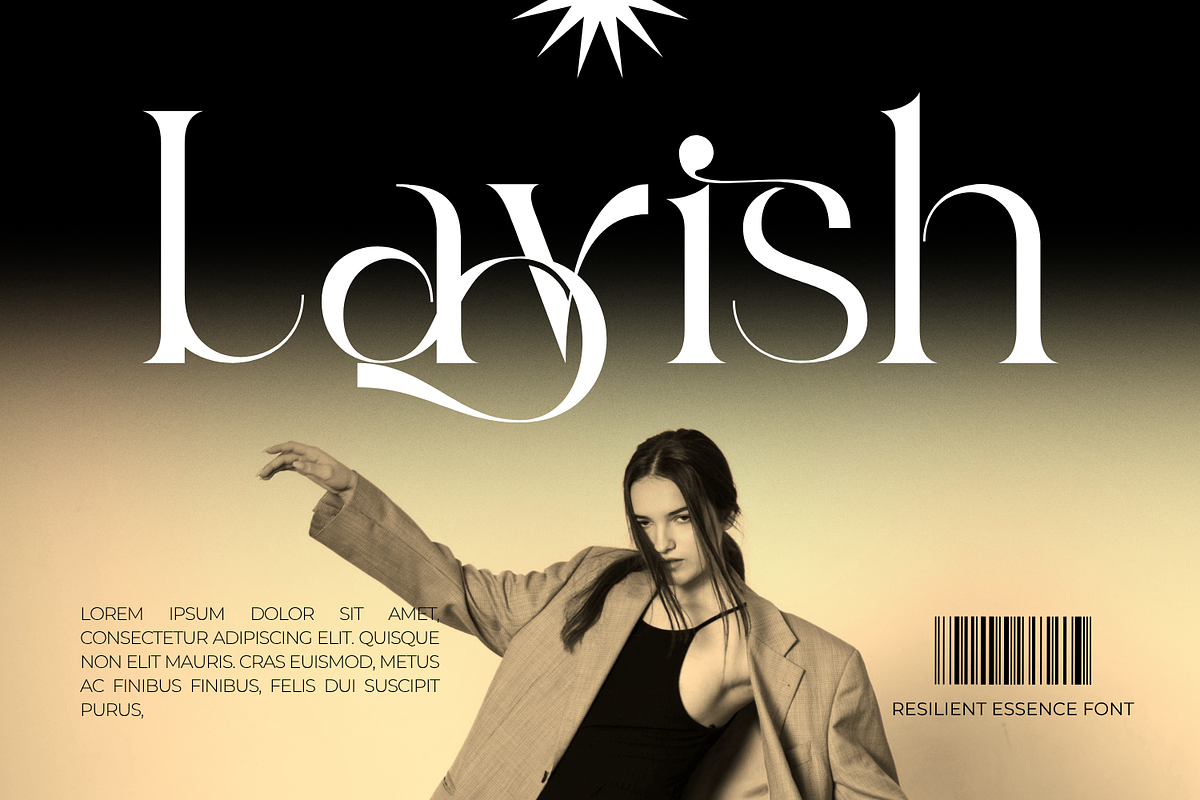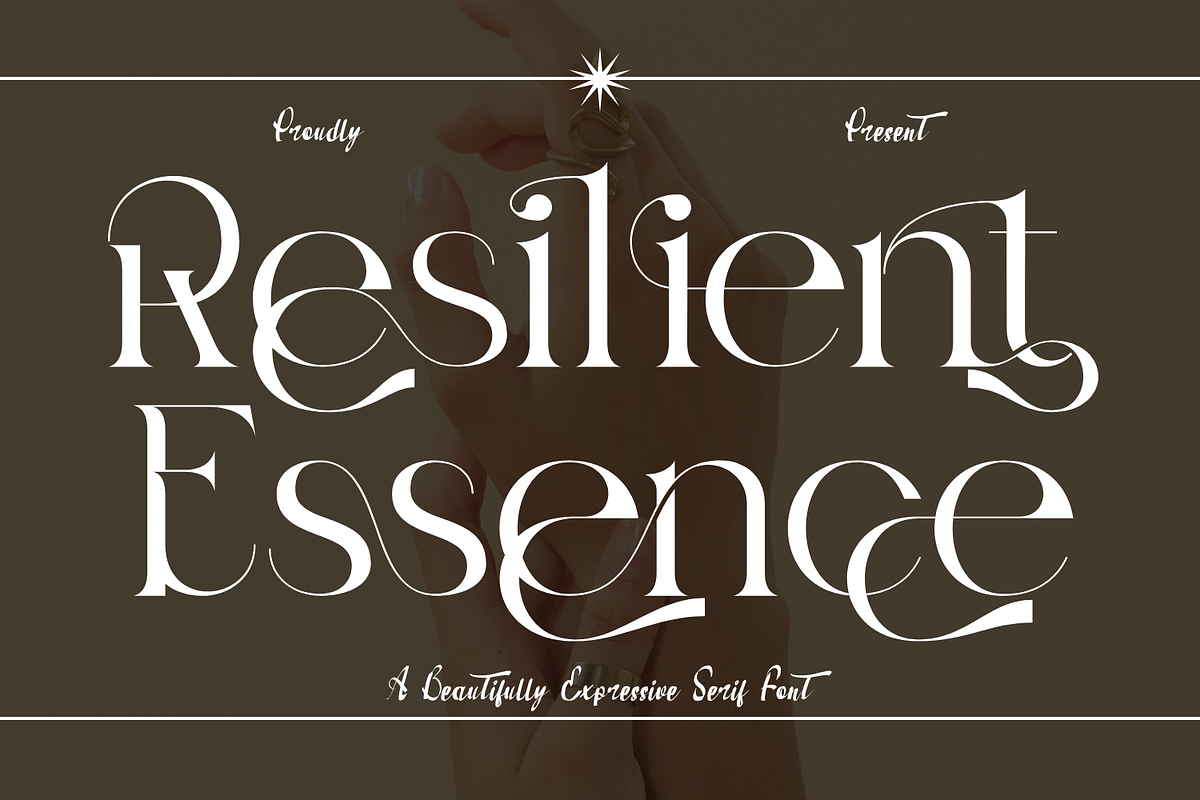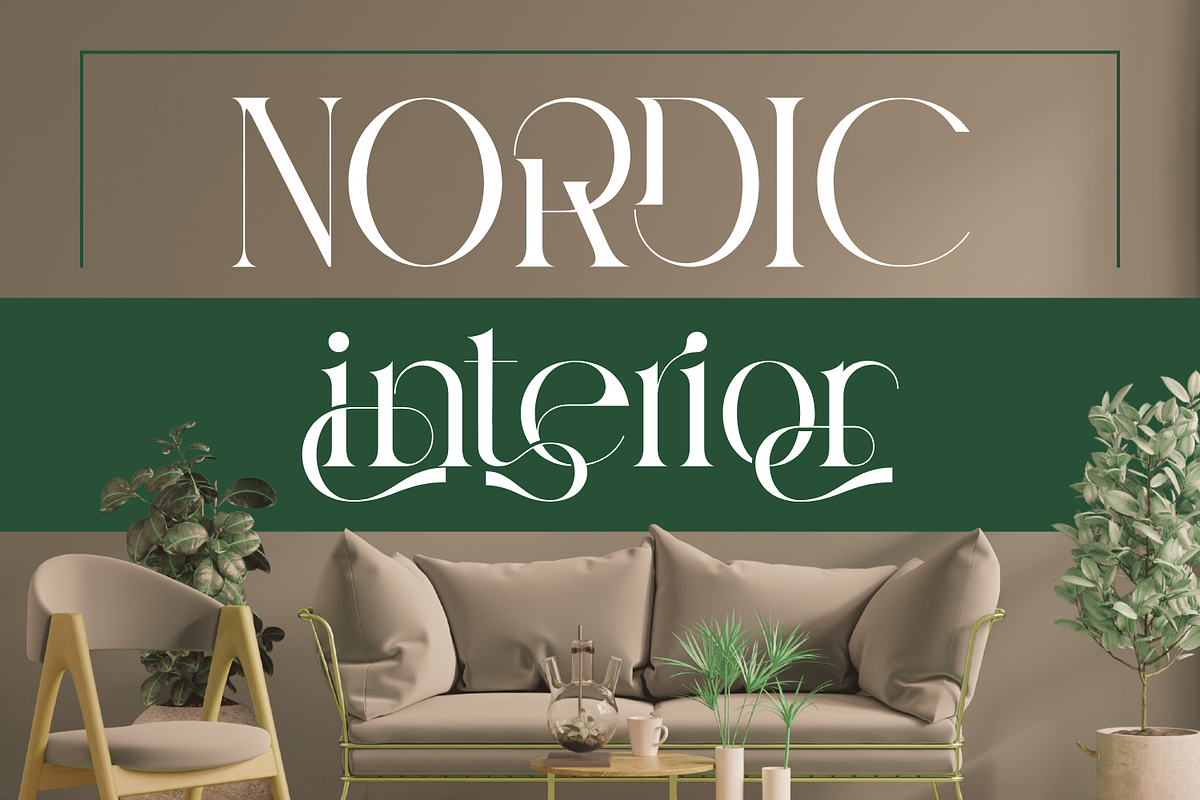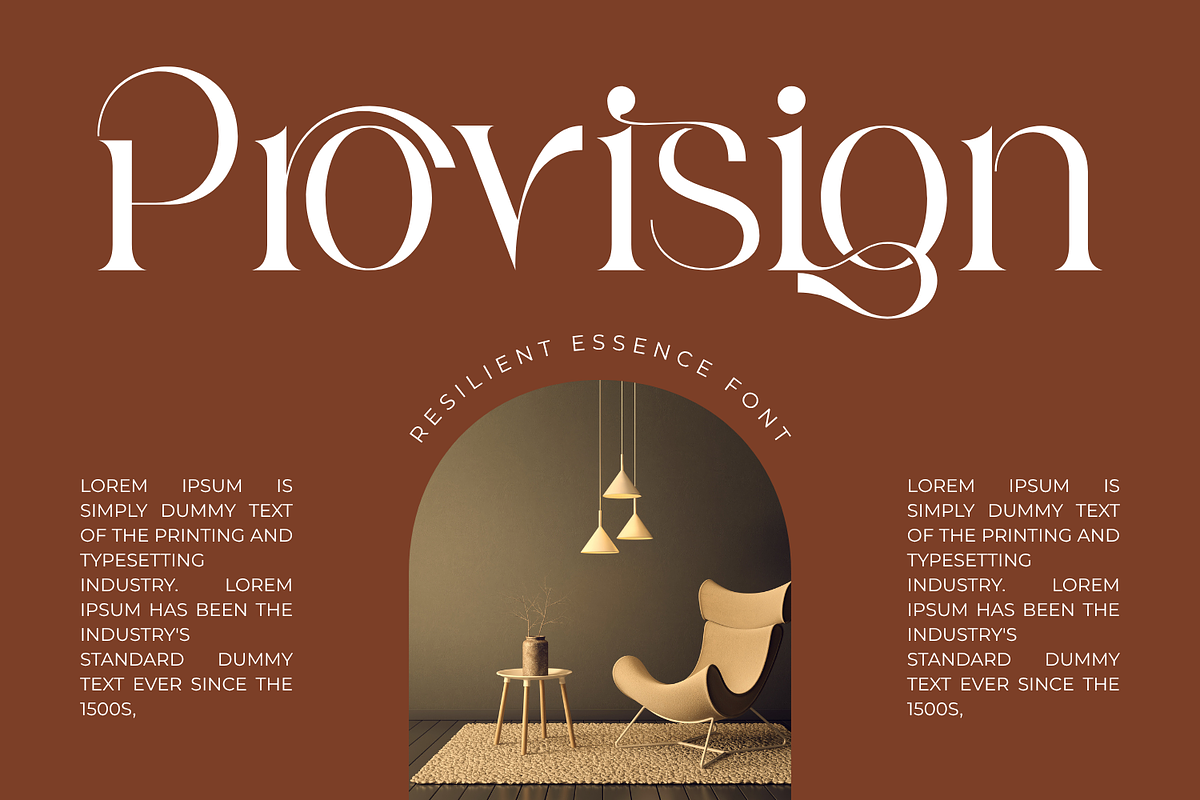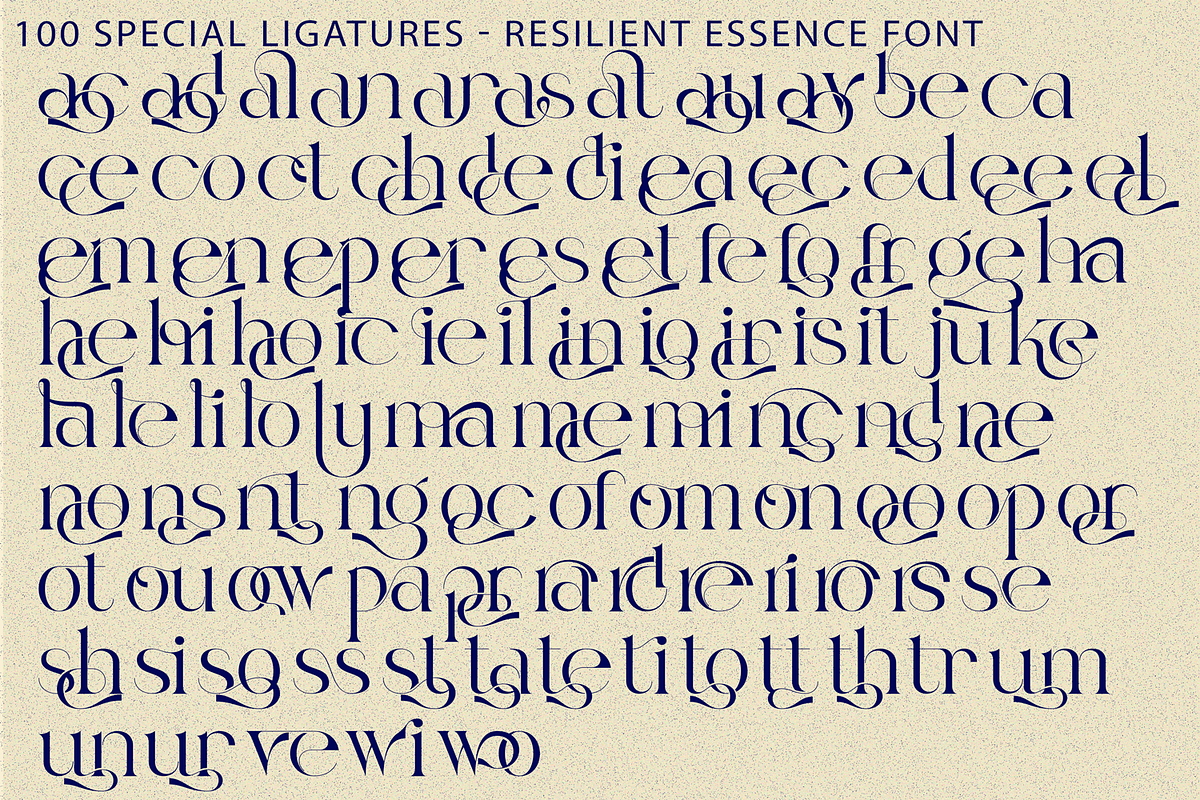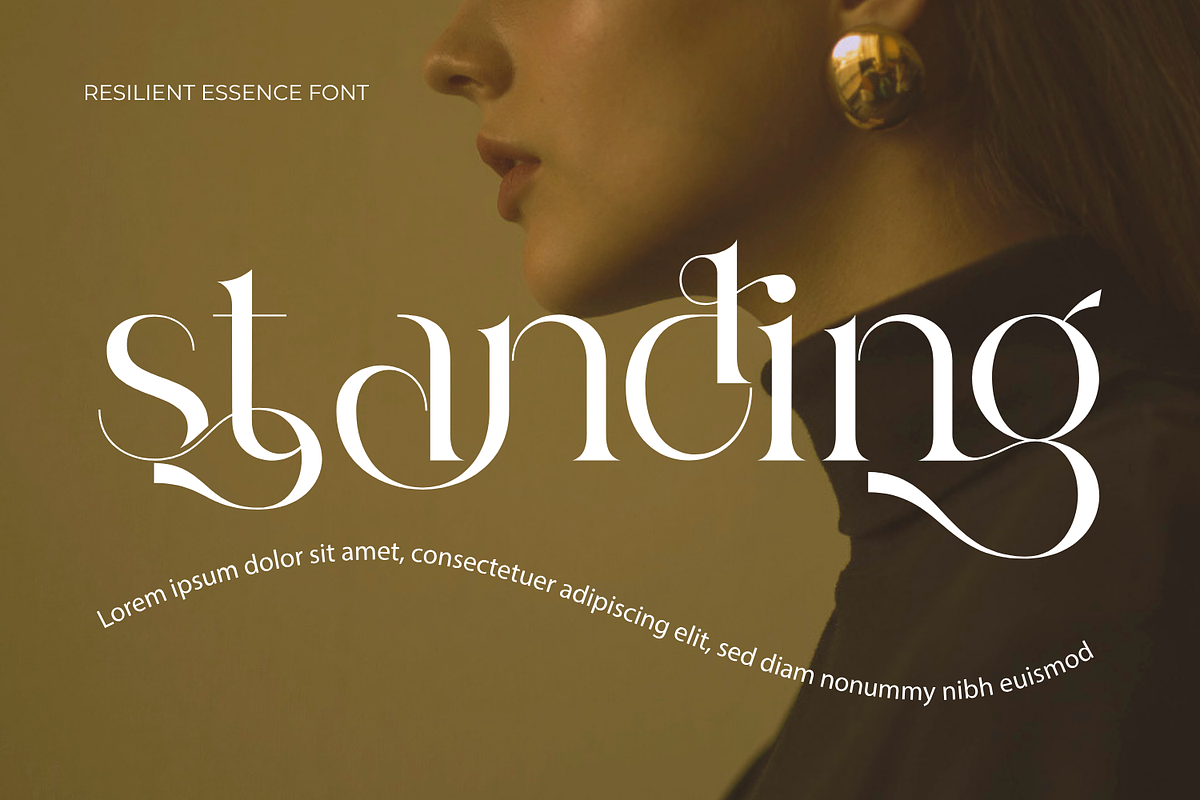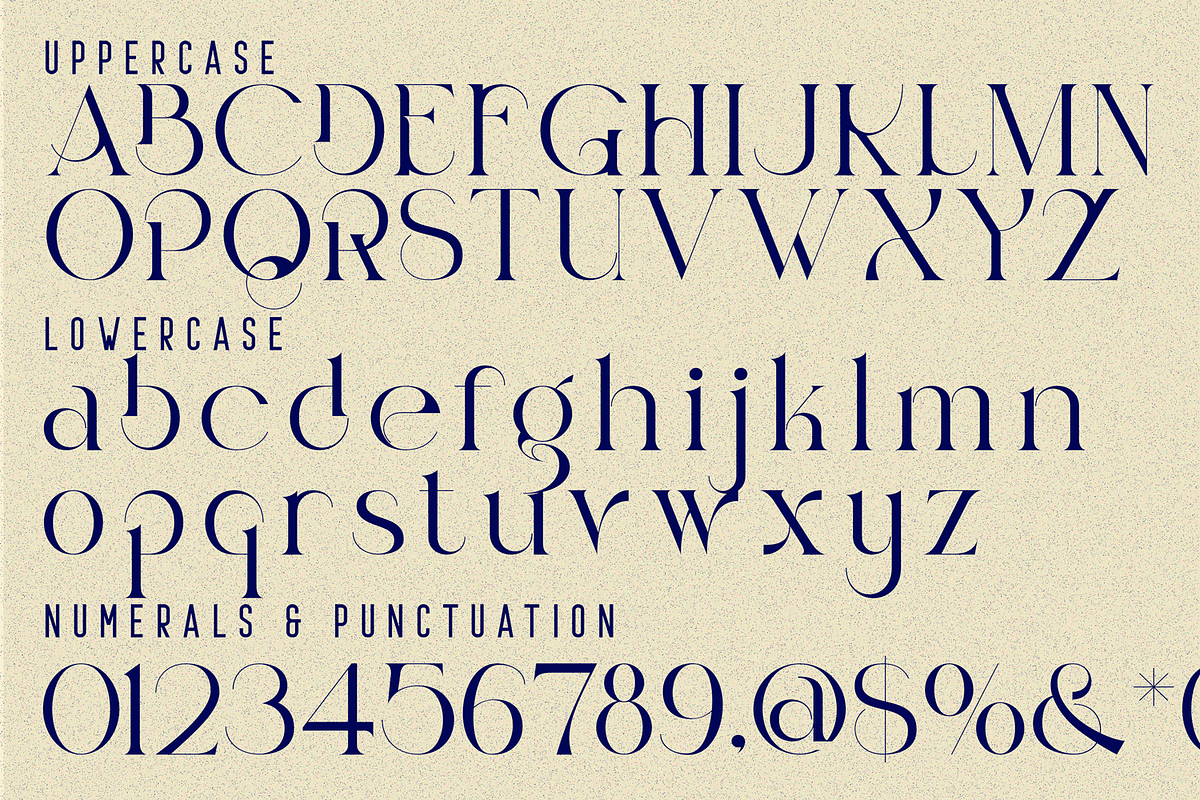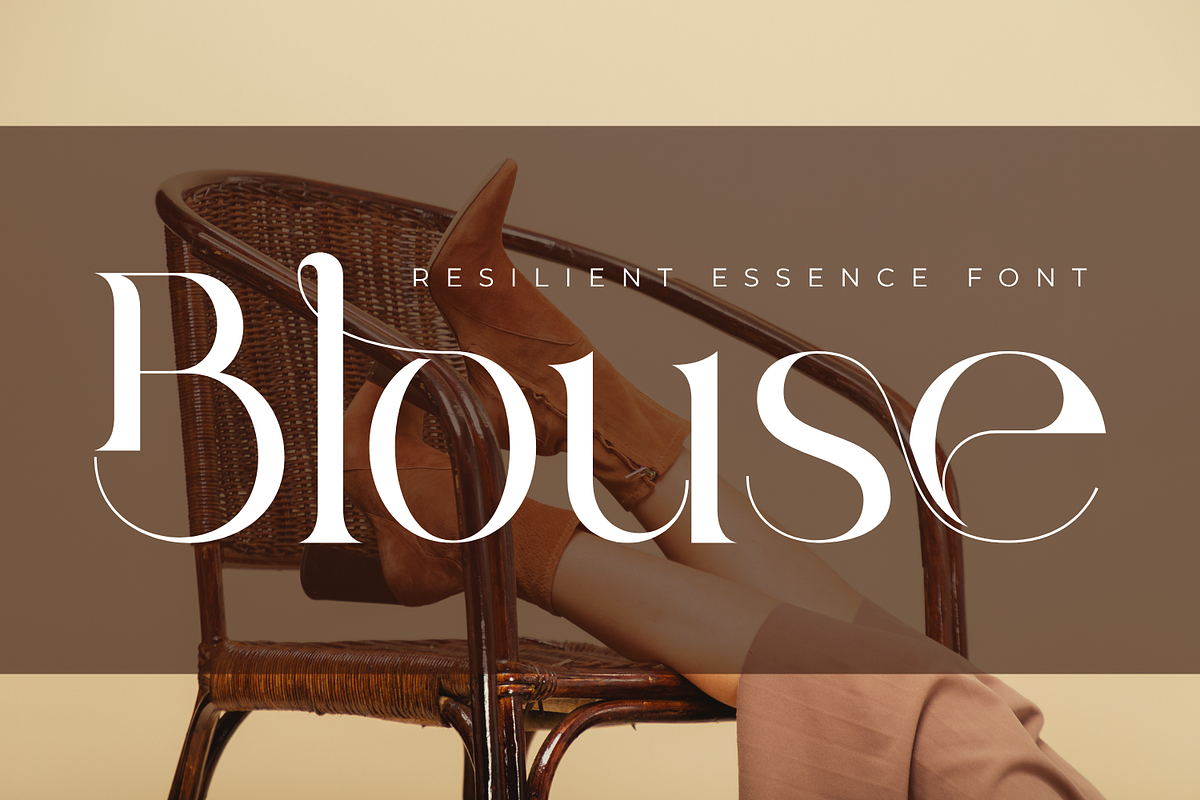
Resilient Essence - Elegant Font
Resilient Essence - Elegant Font is an elegant calligraphic serif display font designed with graceful curves, refined contrast, and flowing decorative details. Its high-contrast letterforms and stylish ligatures create a luxurious rhythm that feels both timeless and modern. Perfect for beauty branding, fashion editorials, wedding invitations, perfume packaging, boutique logos, and premium visual identities, Resilient Essence brings sophistication and artistic charm to every design.
Uppercase & Lowercase Letters
Around 100 Special Ligatures & Alternates
Accented Characters for multilingual support
🔤About 100 ligatures combined with Stylistic Alternates Font:
ac ad al an ar as at au av be ca ce ch co ct de di ea ec ed ee el em en ep er es et fe fo fr ge ha he hi ho ie ic il in io ir is it ju ke la le li ll lo ly ma me mi nc nd ne ng no nt ns oc of om on oo op or ot ou ow pa pr ra rd re ri ro rs rt se sh si so ss st ta te th ti to tr tt um un ur ve wi wo